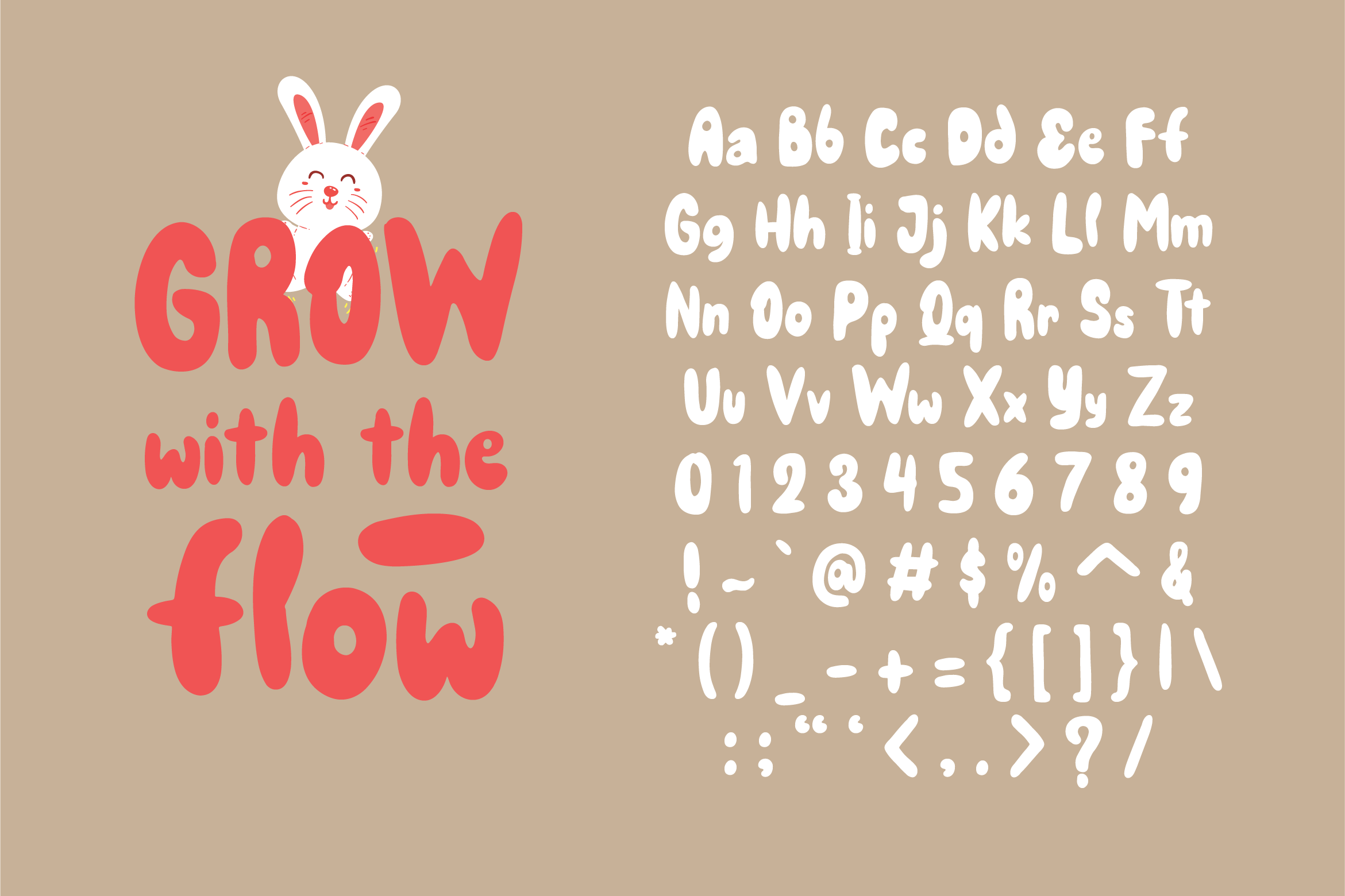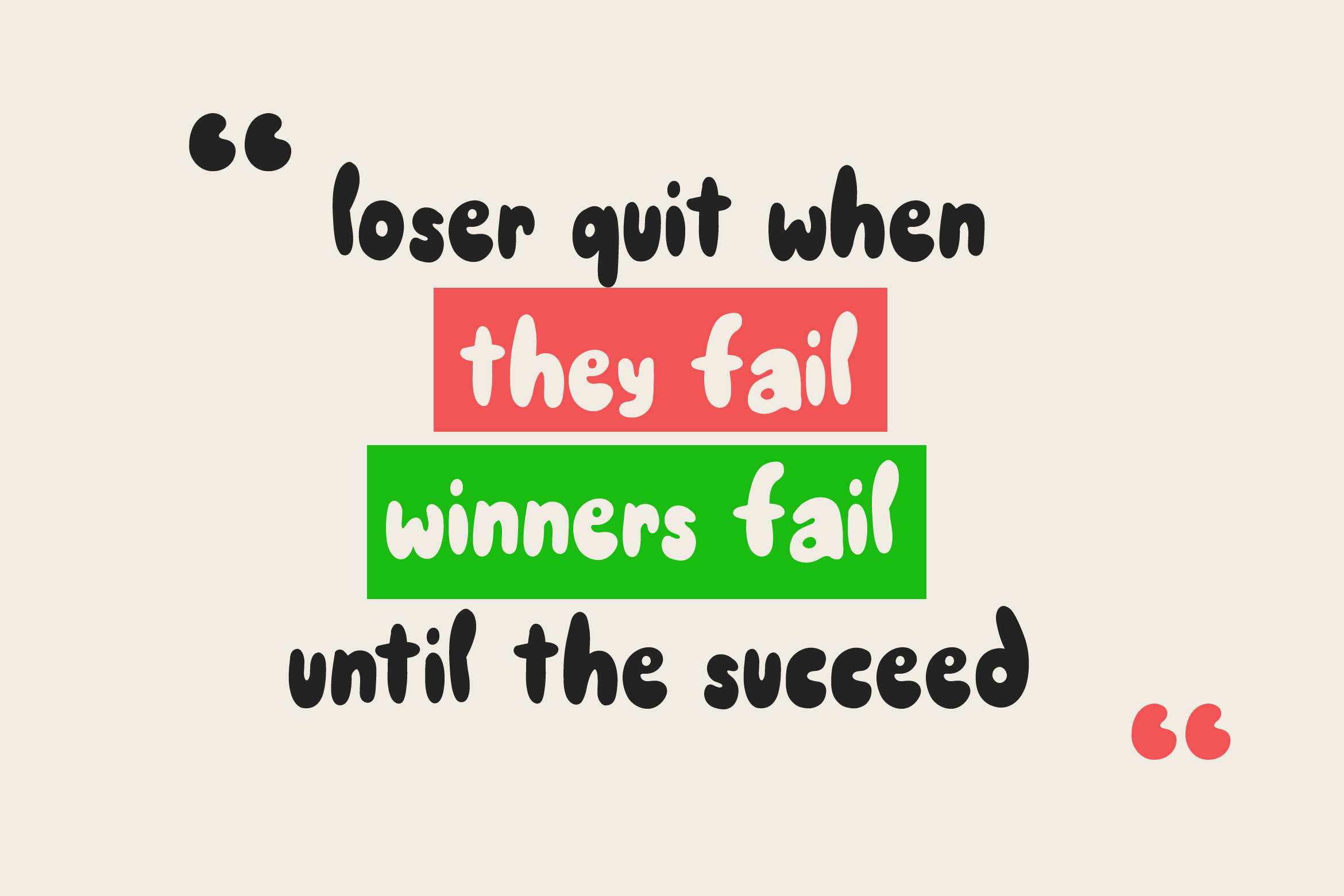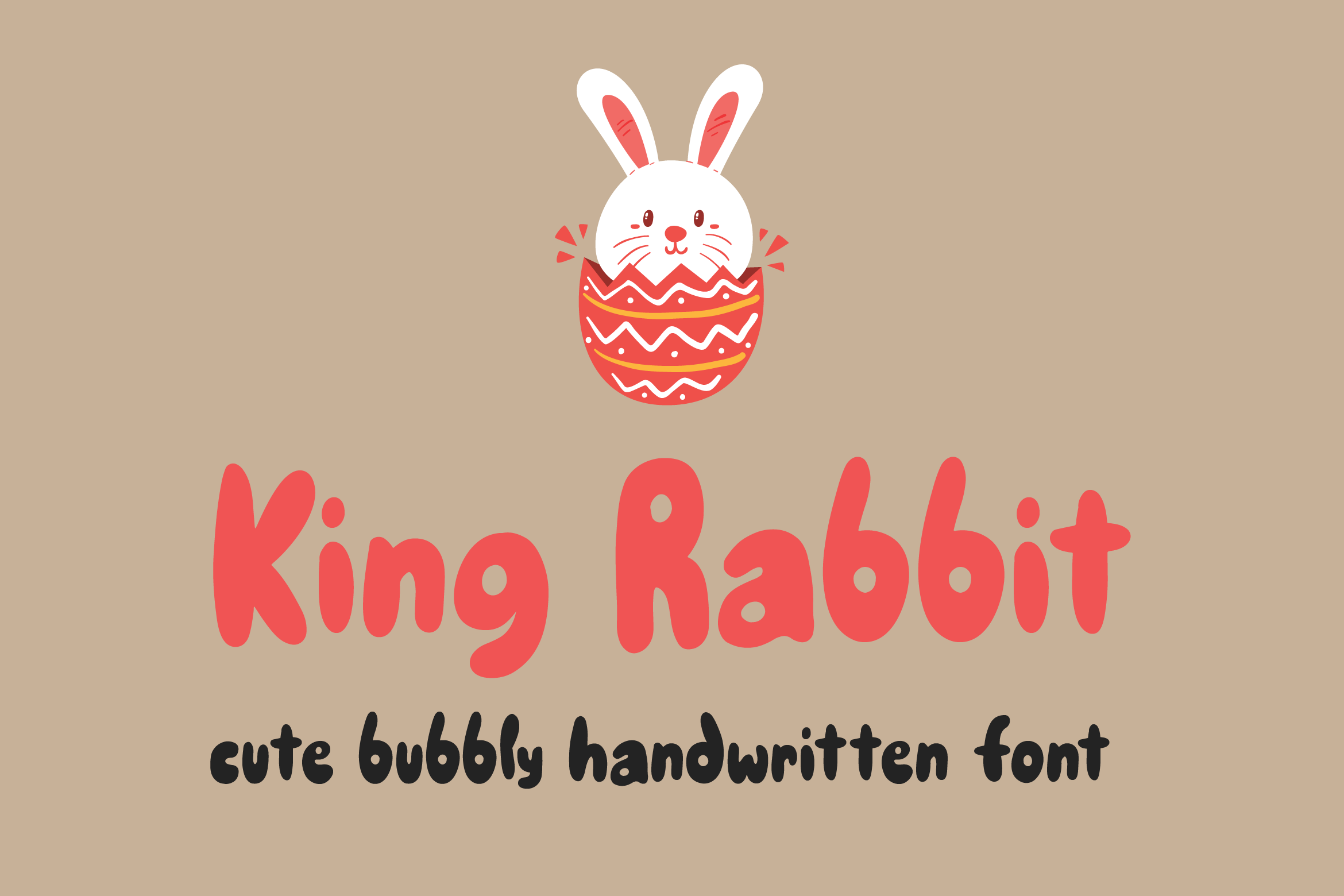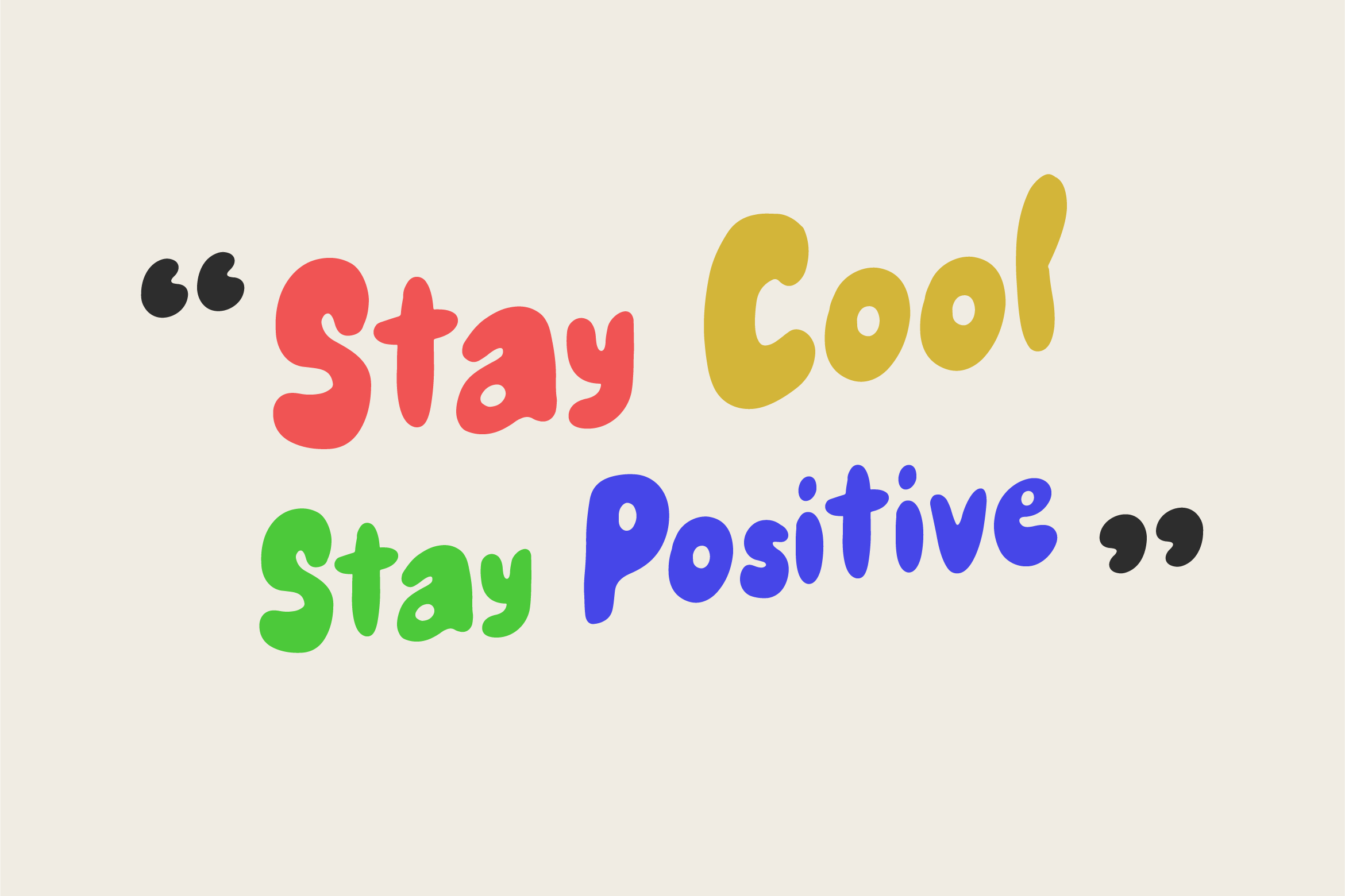
King Rabbit Font
King Rabbit Display Font
King Rabbit Font is a cute and bubbly display font, ready to make your designs look great and fun! Use it with confidence on your project designs such as quotes, greeting cards, invitations, posters, business cards, presentations, and more!